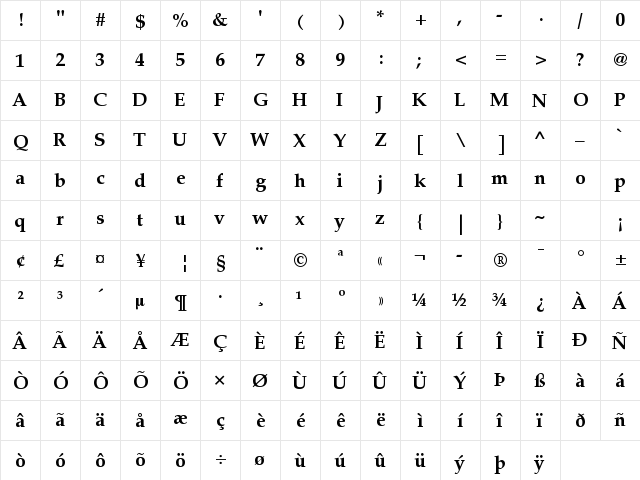
Bahij Uthman Taha Bold
| Foundry | Tiro Typeworks for Adobe Systems Incorporated. |
| Designer | Tim Holloway (Arabic) and Robert Slimbach (Latin) |
Design Context for Bahij Uthman Taha Typeface
Bahij Uthman Taha takes a measured approach to typography — its balanced proportions and neutral character make it a reliable workhorse for both digital and print work. The heavy weight commands attention and anchors typographic hierarchies.